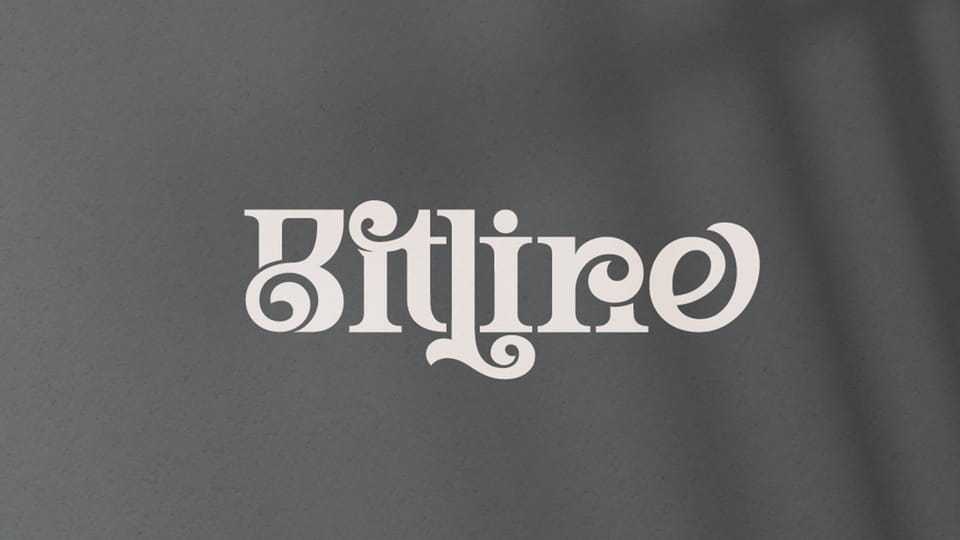
Download Bitline font, a bold swirly typeface that comes with more alternate style each glyphs and ligature. The font is unique and modern vintage look.